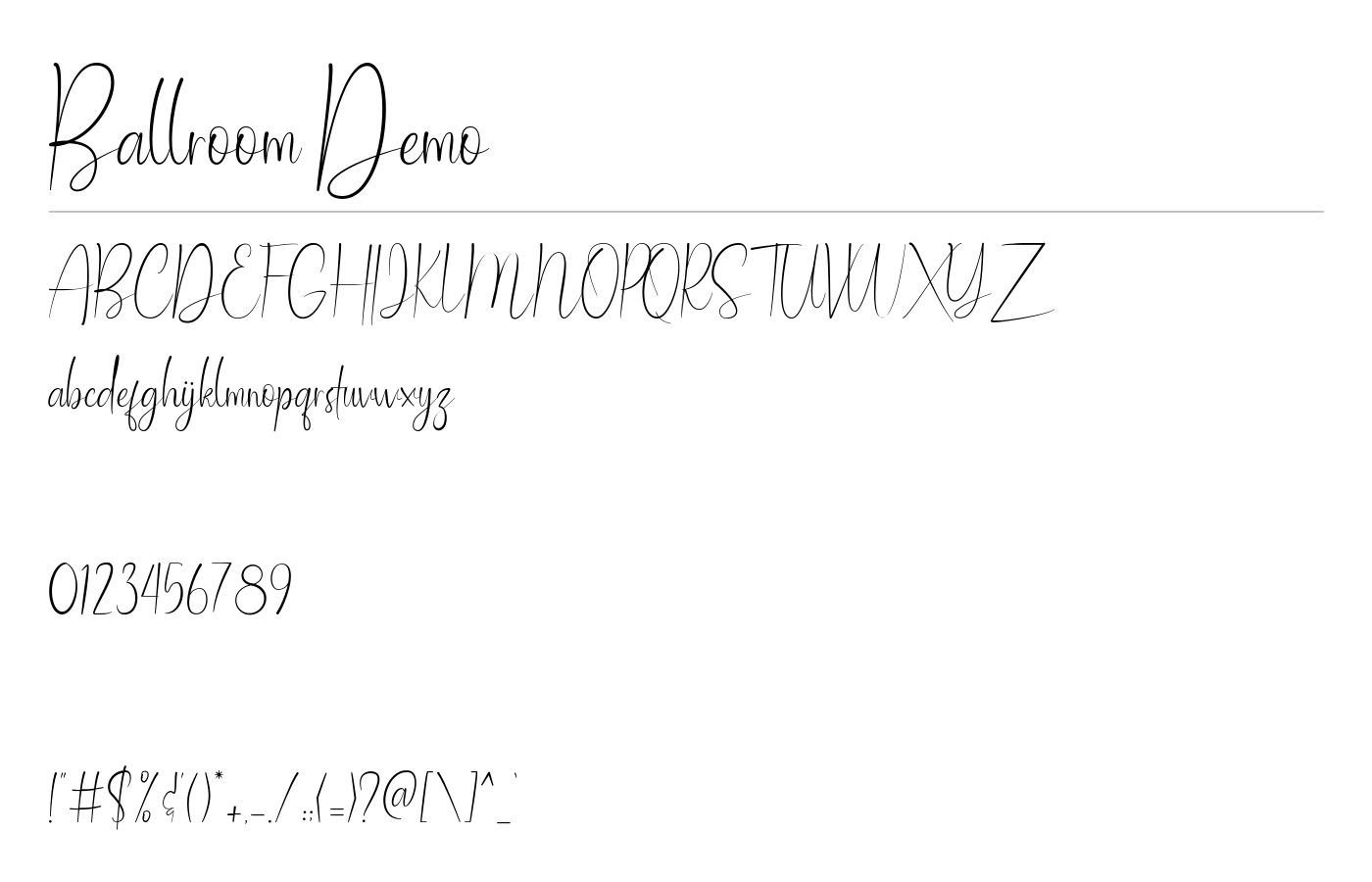
Ballroom Font is a delicate and elegant script typeface characterized by its thin, flowing strokes and tall, narrow letterforms that evoke a sense of grace and sophistication. Its light weight and airy spacing make it ideal for stylish invitations, wedding materials, and feminine branding where a refined, artistic touch is desired. This font works best in decorative headlines or accents rather than extended text, lending an elegant and modern flair to any design it complements.
Ballroom Font
About Ballroom Font
| Font family | Ballroom Font |
| Designer | Sabertype Studio |